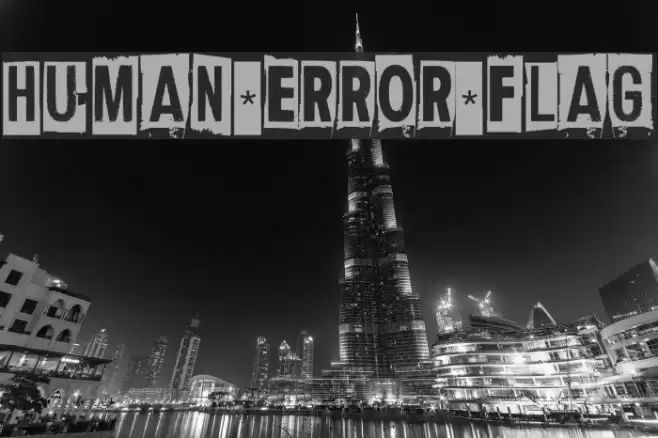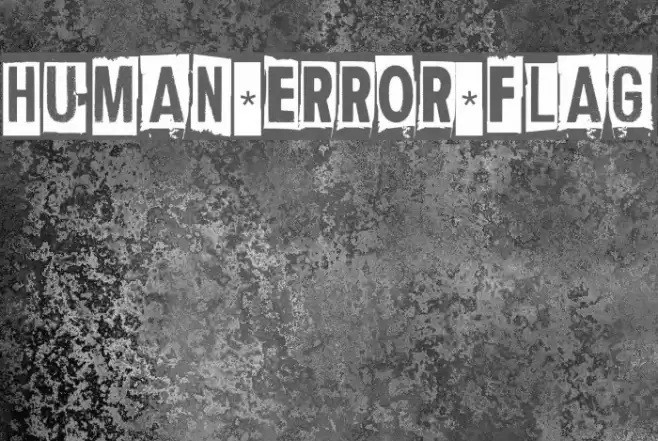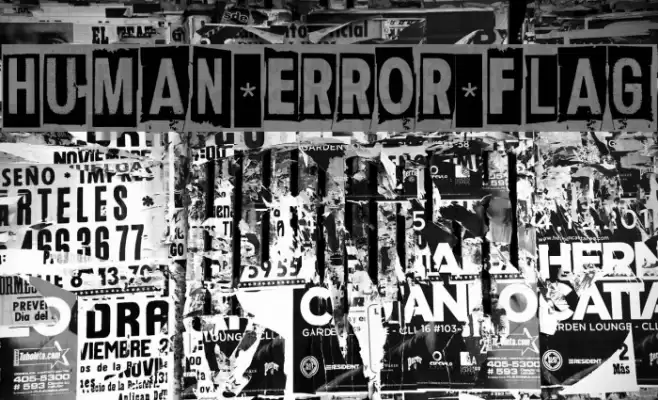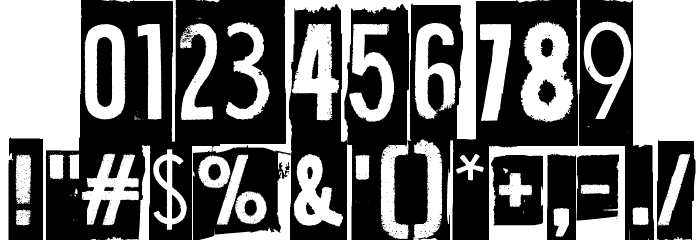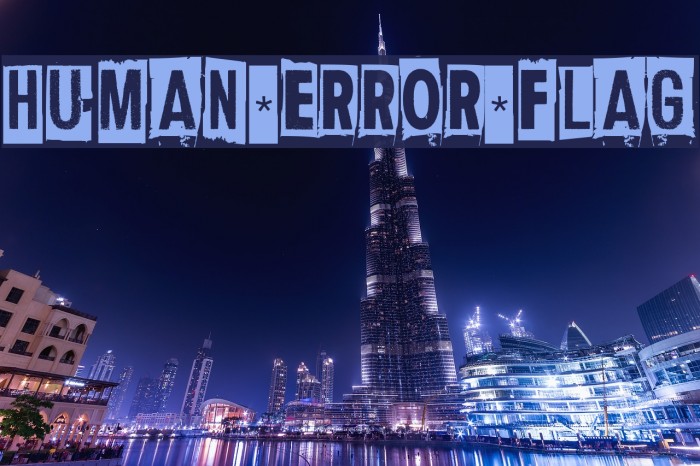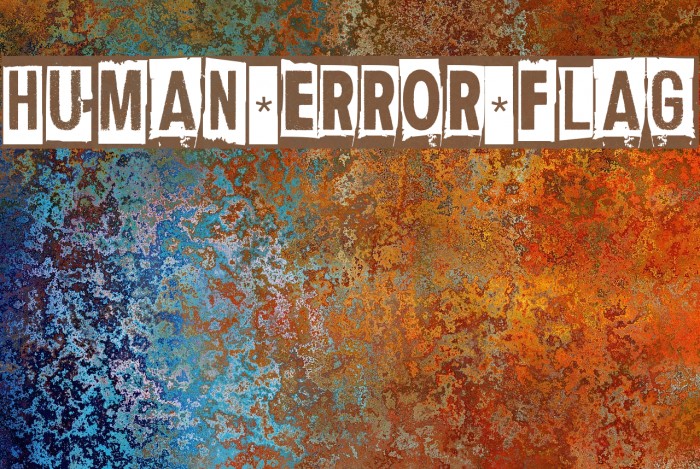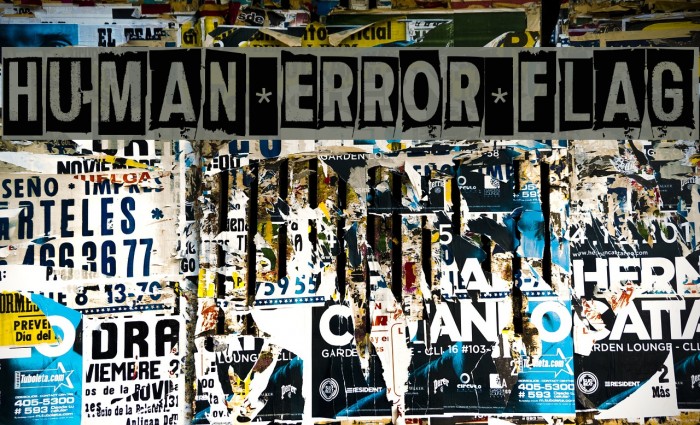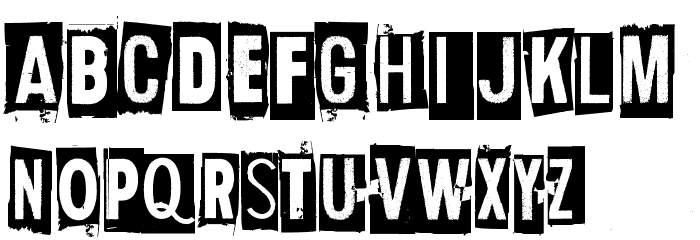
Human Error Flag Font
Human Error Flag Description
This font features a distressed, grunge style with a bold and impactful appearance. Each character appears as if it has been cut from a newspaper or magazine, giving it a ransom note aesthetic. The letters are uppercase and lowercase with a rough, textured edge, adding to the chaotic and rebellious feel. The numbers and special characters follow the same design, maintaining consistency across the set. The overall look is striking and unconventional, making it ideal for projects that require a bold statement or an edgy, urban vibe.
A bold, distressed font with a grunge, ransom note style from Distorted Eroded fonts.
- Proposed Projects: Ideal for album covers, posters, street art, and edgy branding projects.
- Overall Style: Grunge, Urban, Rebellious
- Use Case: Headlines, Posters, Branding